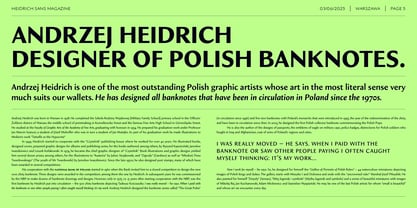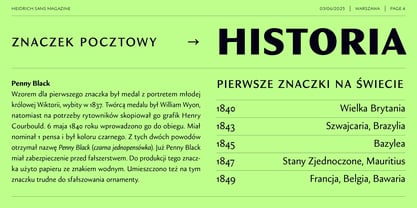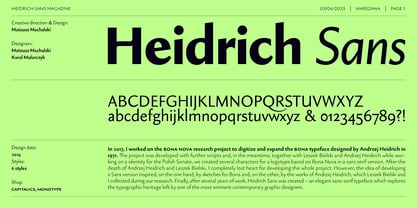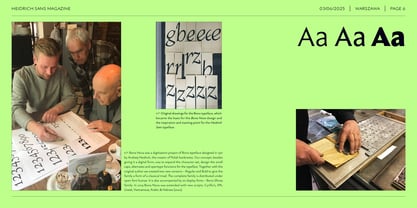
Heidrich Sans
The Heidrich Sans Font Family was designed by Mateusz Machalski and published by Machalski. Heidrich Sans contains 6 styles and family package options.
In 2017, I worked on the Bona Nova research project to digitize and expand the Bona typeface designed by Andrzej Heidrich in 1971. The project was developed with further scripts and, in the meantime, together with Leszek Bielski and Andrzej Heidrich while working on a identity for the Polish Senate, we created several characters for a logotype based on Bona Nova in a sans serif version. After the death of Andrzej Heidrich and Leszek Bielski, I completely lost heart for developing the whole project. However, the idea of developing a Sans version inspired, on the one hand, by sketches for Bona and, on the other, by the works of Andrzej Heidrich, which Leszek Bielski and I collected during our research. Finally, after several years of work, Heidrich Sans was created – an elegant sans-serif typeface which explores the typographic heritage left by one of the most eminent contemporary graphic designers.
Designers: Mateusz Machalski
Heidrich Sans